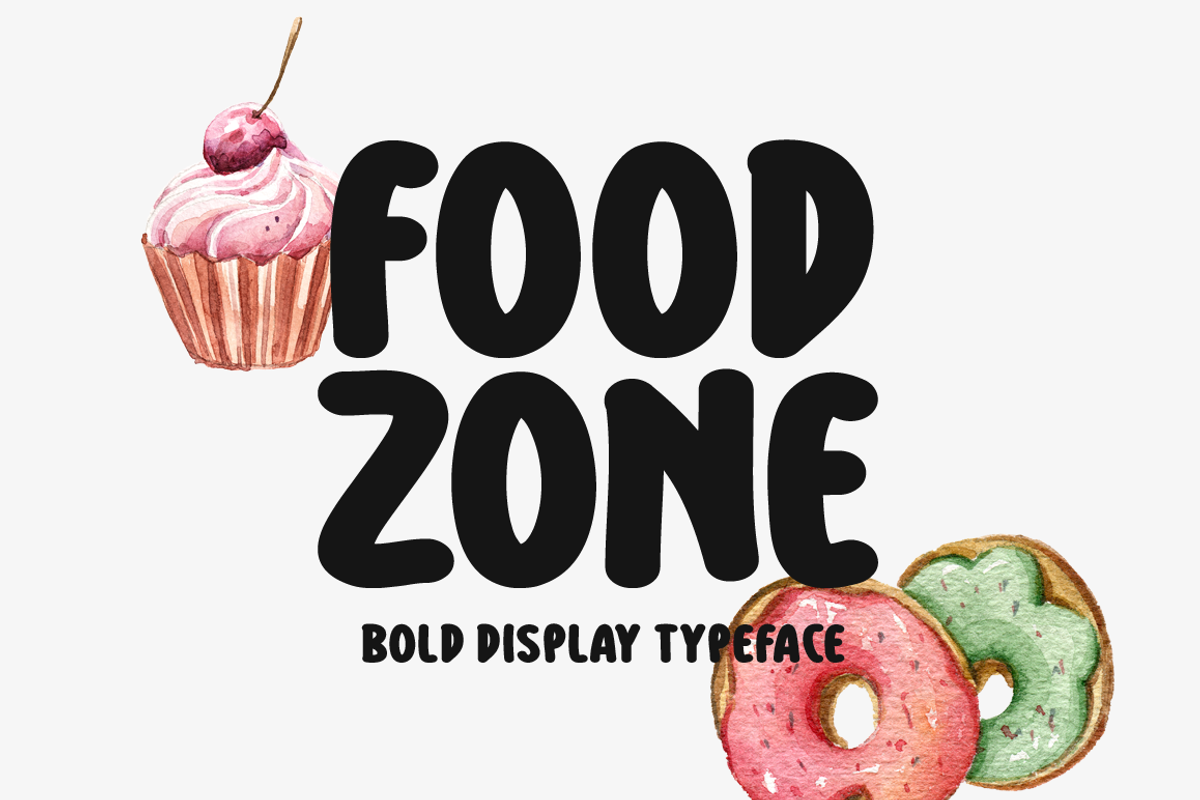
Food Zone Typeface Free Download
Food Zone Typeface Free Download is a playful and fun typeface designed specifically for food-related projects. With its bold, rounded letterforms and friendly, approachable style, Food Zone is perfect for restaurant menus, food packaging, food trucks, recipe blogs, and promotional materials related to the culinary world.
The font brings an inviting and energetic feel to any design, making it ideal for anything that requires a tasty, appetizing vibe. Whether you're working on a café logo, a gourmet food brand, or a casual dining flyer, Food Zone adds a touch of warmth and personality to your typography.